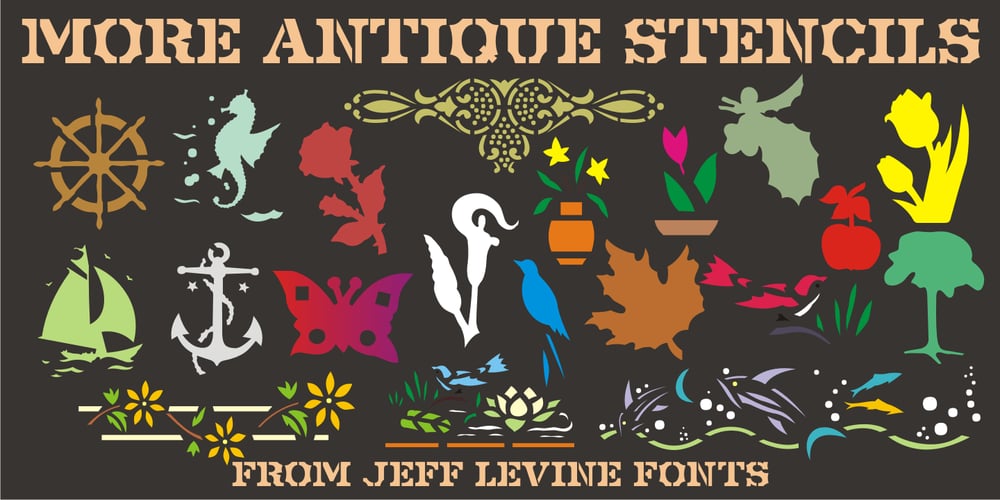
More Antique Stencils JNL
More Antique Stencils JNL font
More Antique Stencils JNL Font Family was designed by Jeff Levine and published by Jeff Levine. More Antique Stencils JNL contains 1 styles and family package options. More Antique Stencils JNL is another collection of wonderful decorative stencil designs from antique sources. Included in this font are floral, bird and nautical motifs in both singular and border designs as well as an ornate embellishment. This font is a companion to Antique Stencils JNL.